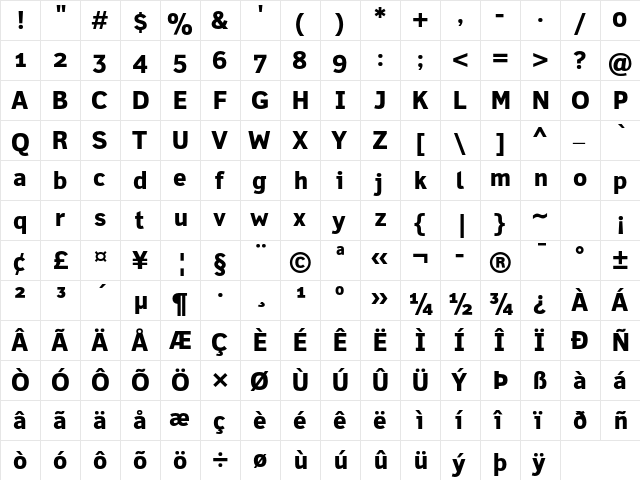
Felbridge Std ExtraBold Font Preview
Felbridge Std ExtraBold
Design Context for Felbridge Std Typeface
Felbridge Std offers clean, dependable letterforms without strong stylistic allegiance, making it a practical choice for designers who need flexibility. The heavy weight commands attention and anchors typographic hierarchies.